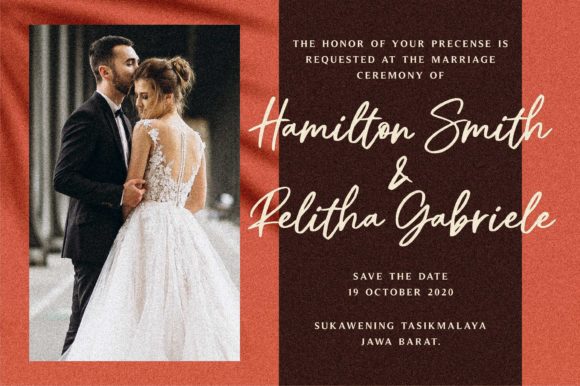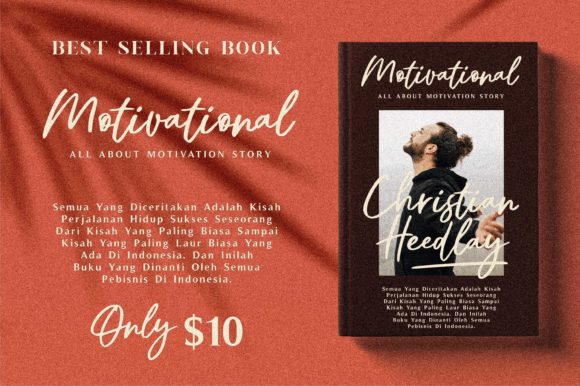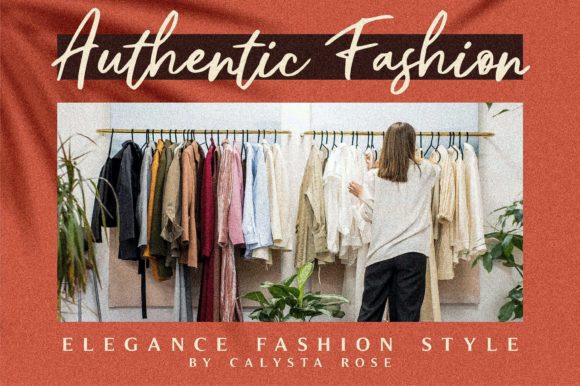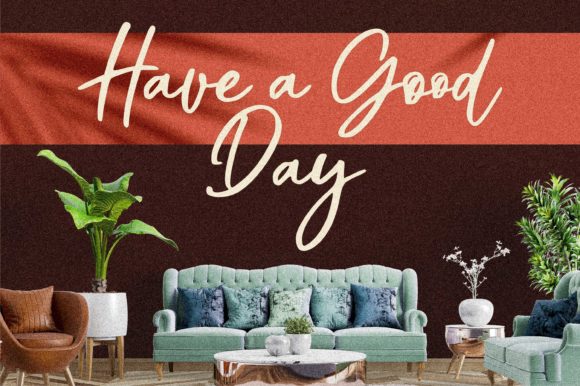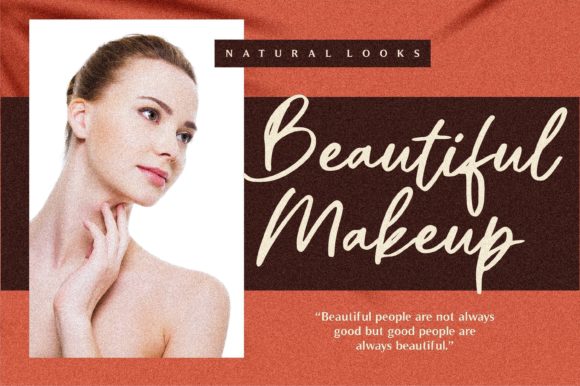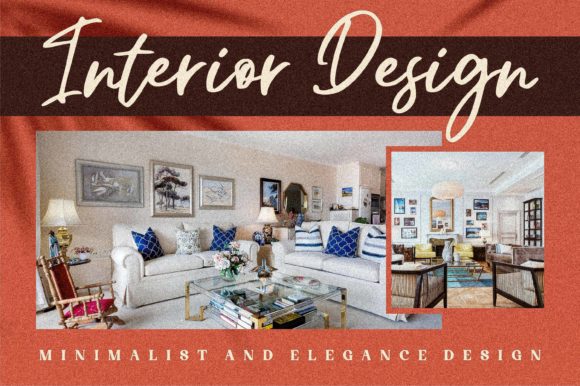
Introduction to Christian Heedlay Font
Christian Heedlay is an elegant script font with a contemporary atmosphere and impeccable form, inspired by timeless classic calligraphy.
Not too thin and not too thick, balanced and varied, this font was designed to enhance the beauty of your projects .